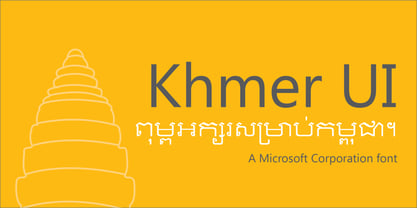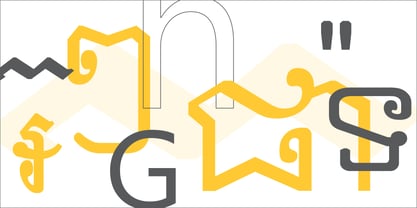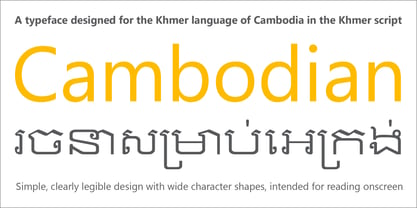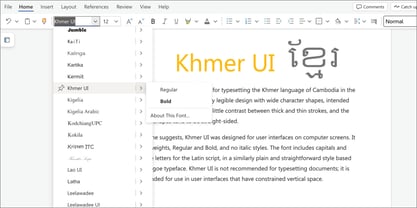
Khmer UI
by Microsoft Corporation
The Khmer UI Font Family was designed by and published by Microsoft Corporation. Khmer UI contains 2 styles and family package options. More about this family
Khmer UI has two weights, Regular and Bold, and no italic styles. The font includes capitals and lowercase letters for the Latin script, in a similarly plain and straightforward style based on the Segoe typeface. It is only intended for use in user interfaces that have constrained vertical space.